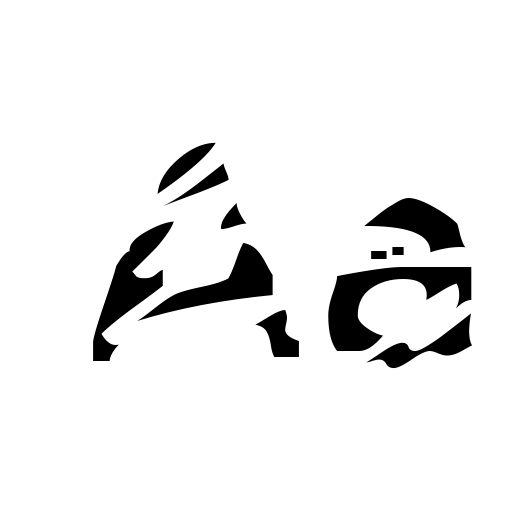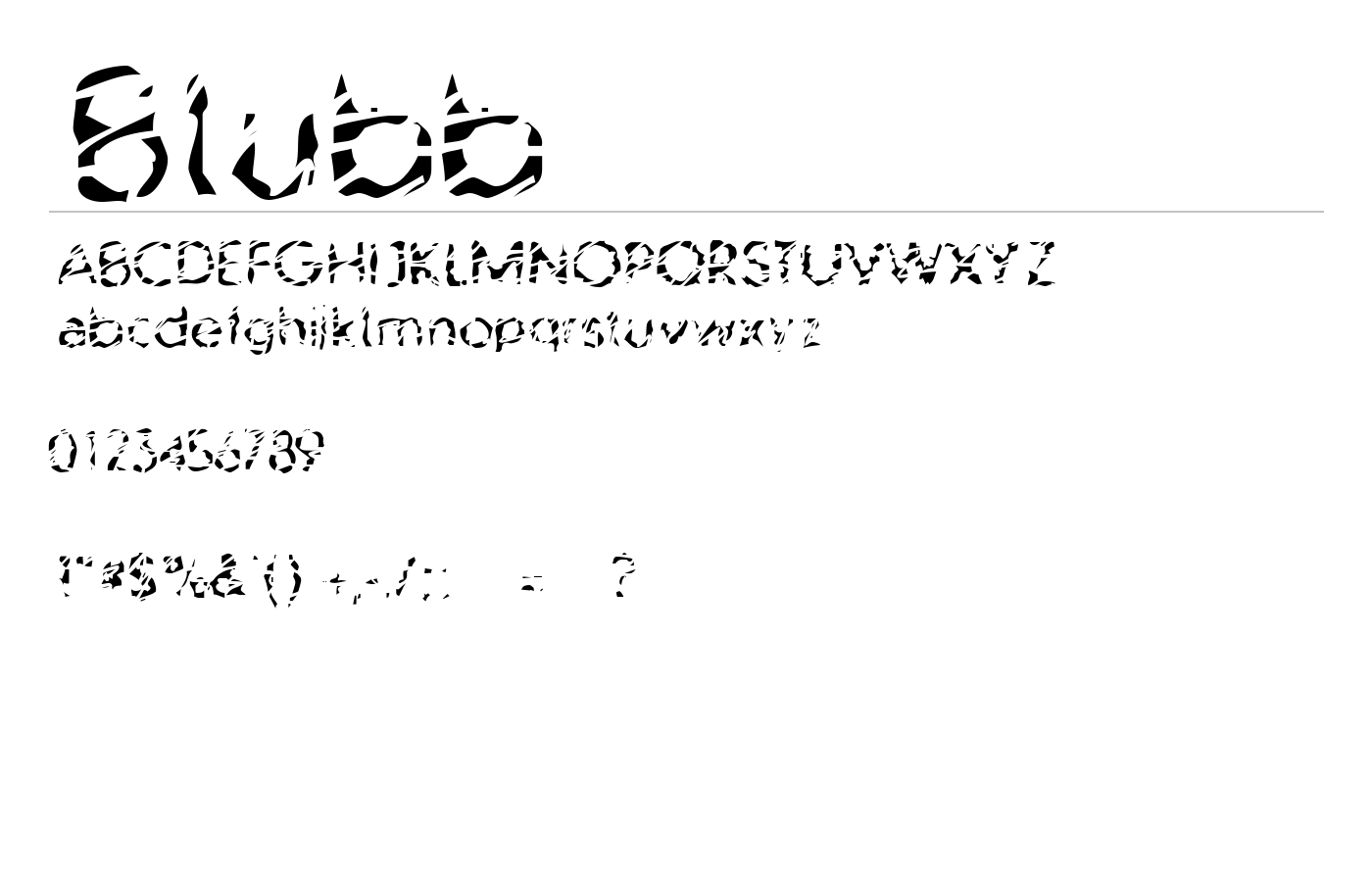
Blubb is a decorative sans serif font with a unique distorted texture that creates a playful, abstract impression. Its irregular shapes and rough edges give it an artistic, experimental vibe, making it ideal for creative posters, eye-catching logos, or edgy designs that seek to stand out. This font works best in display settings where its distinctive style can be appreciated at larger sizes.
Blubb Font
About Blubb Font